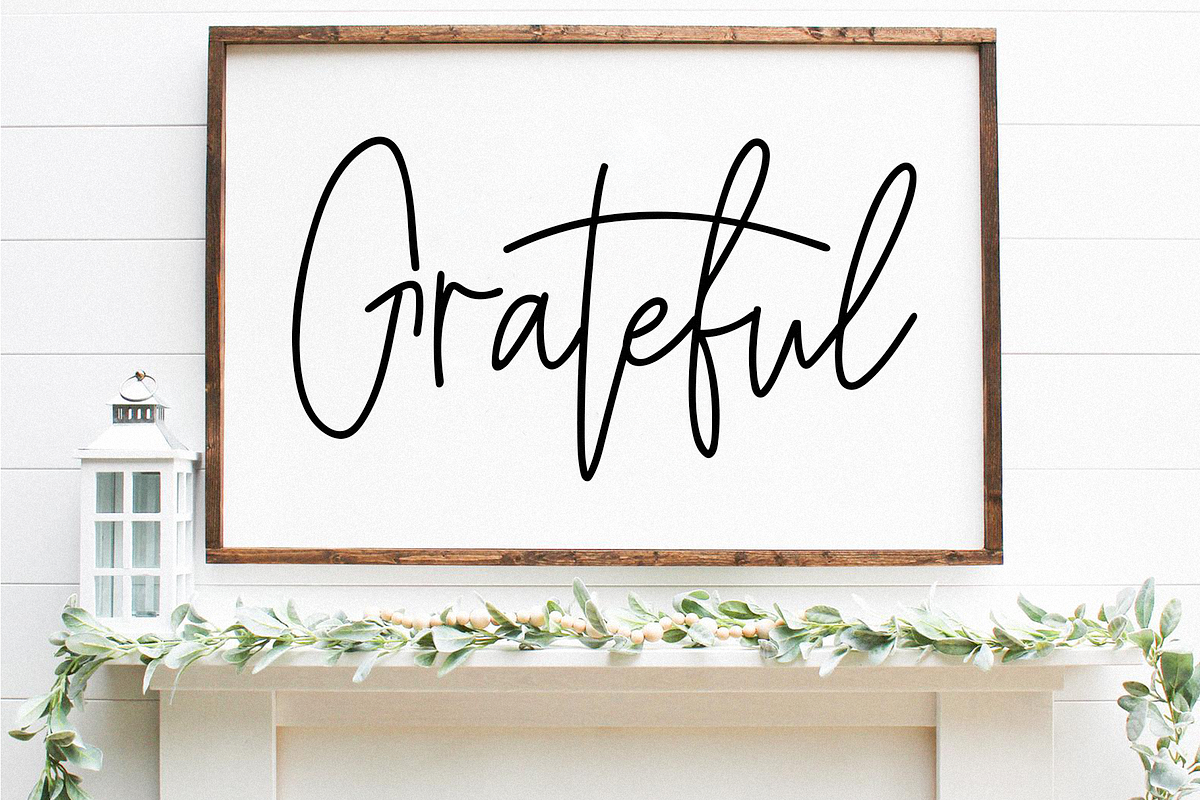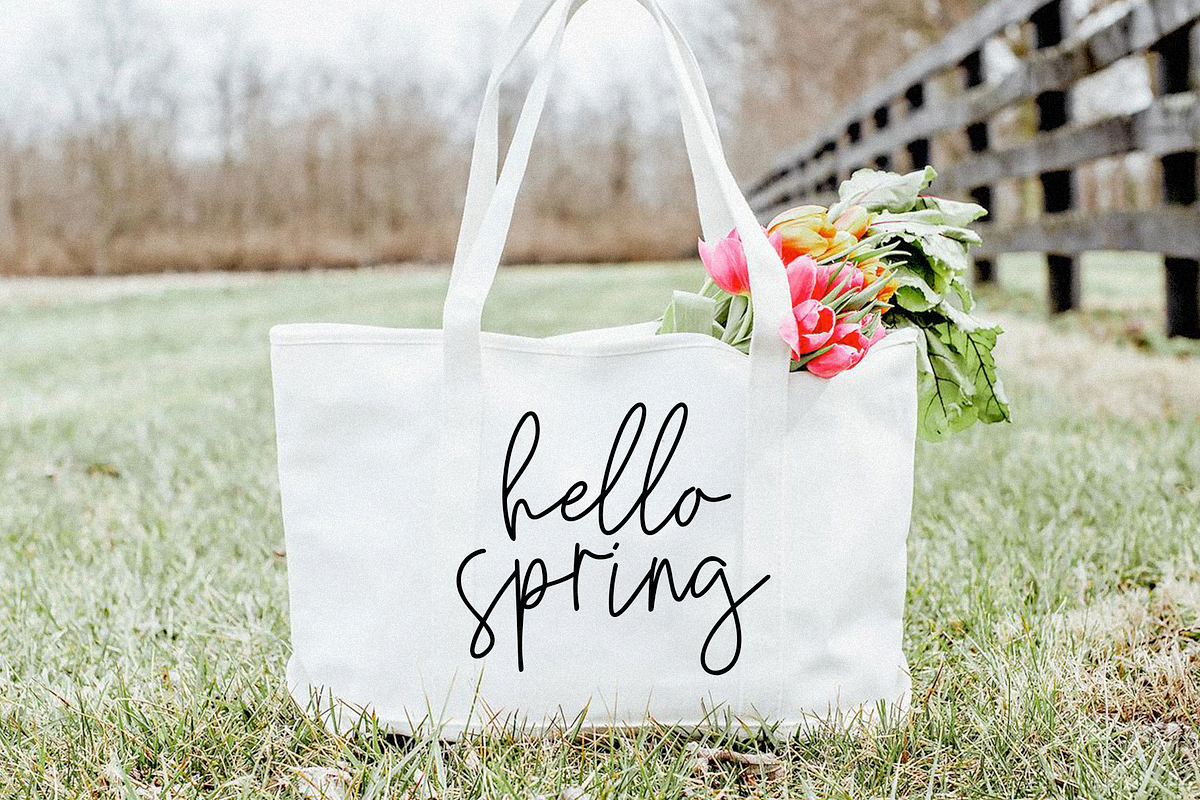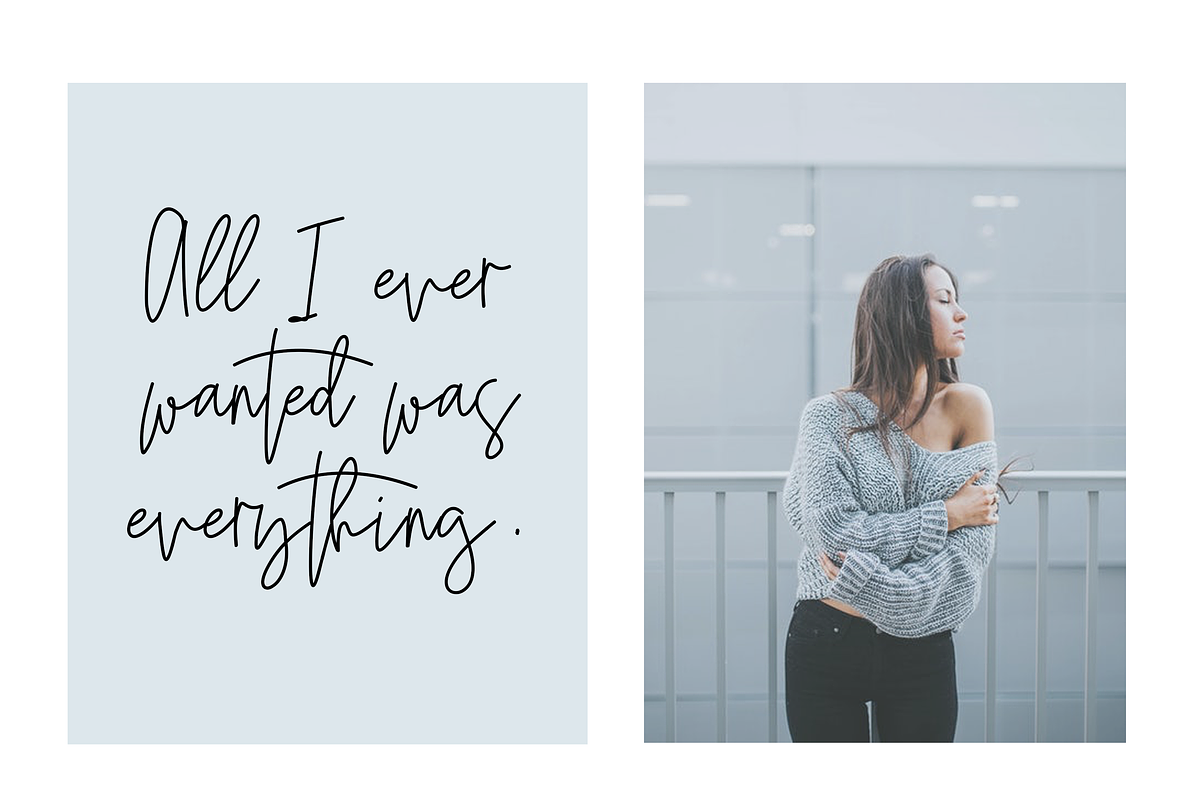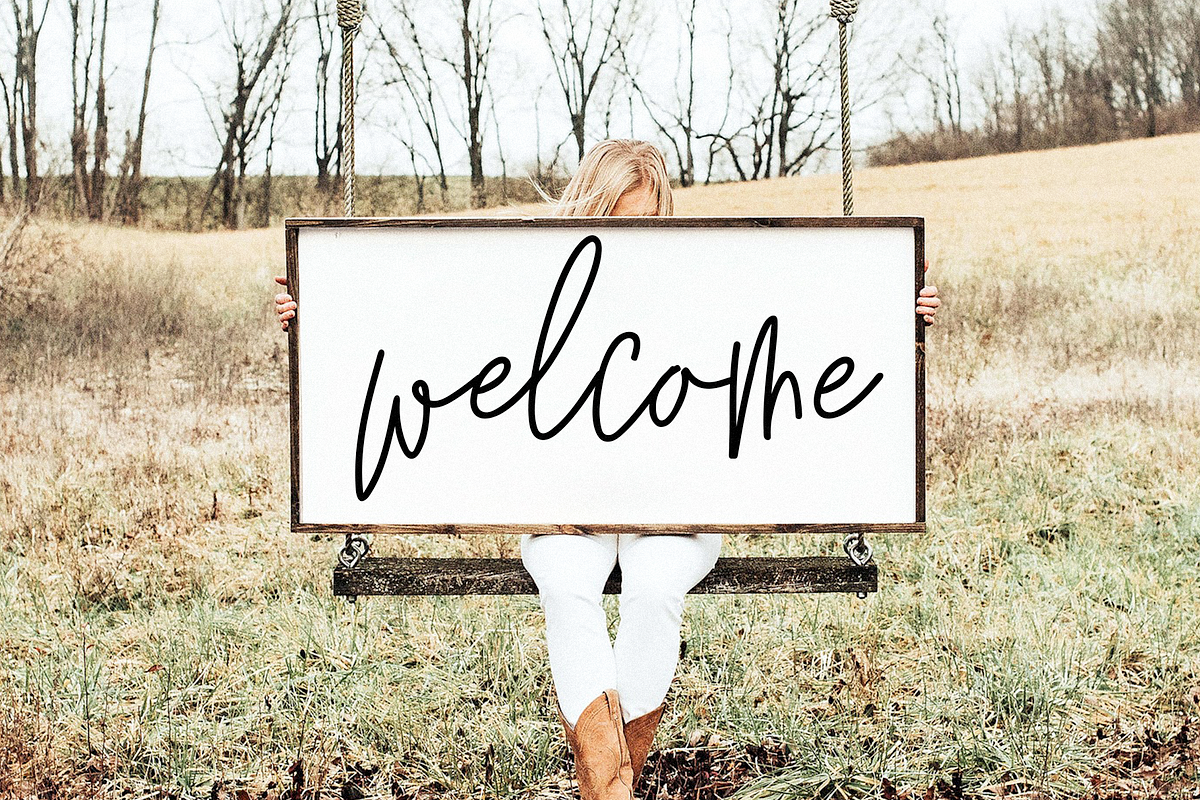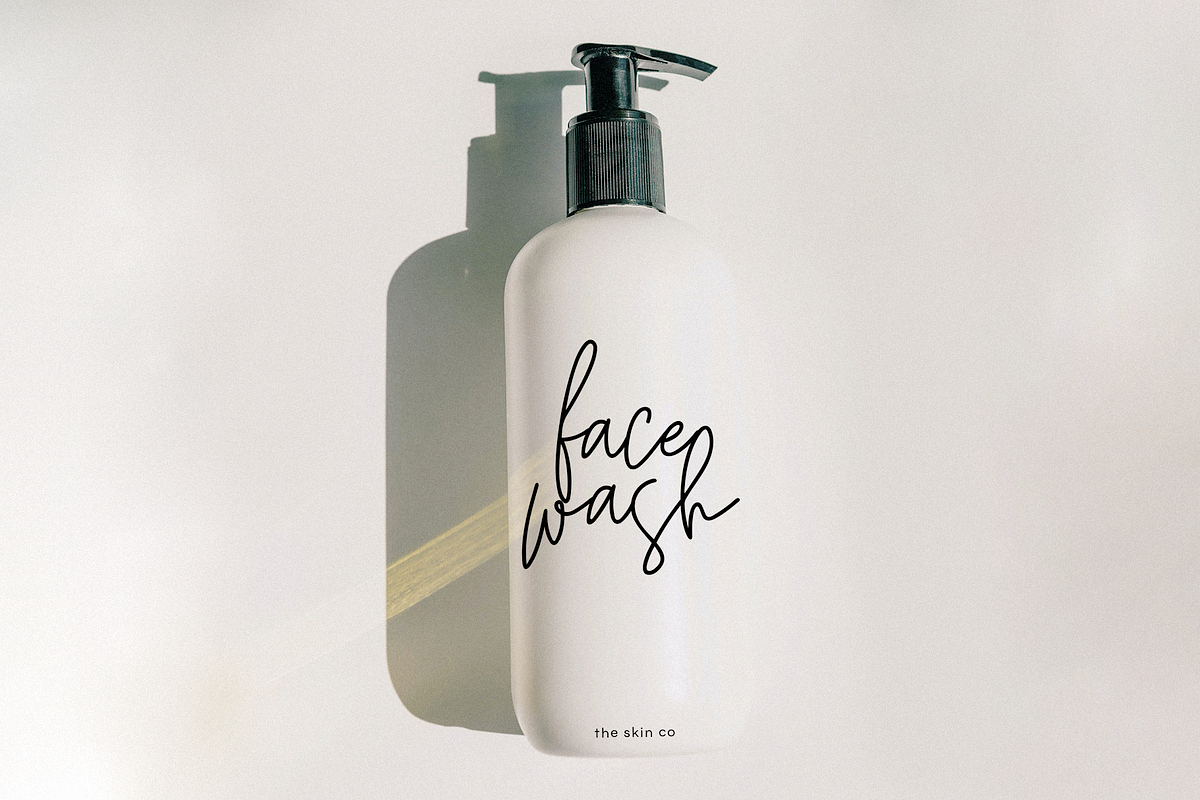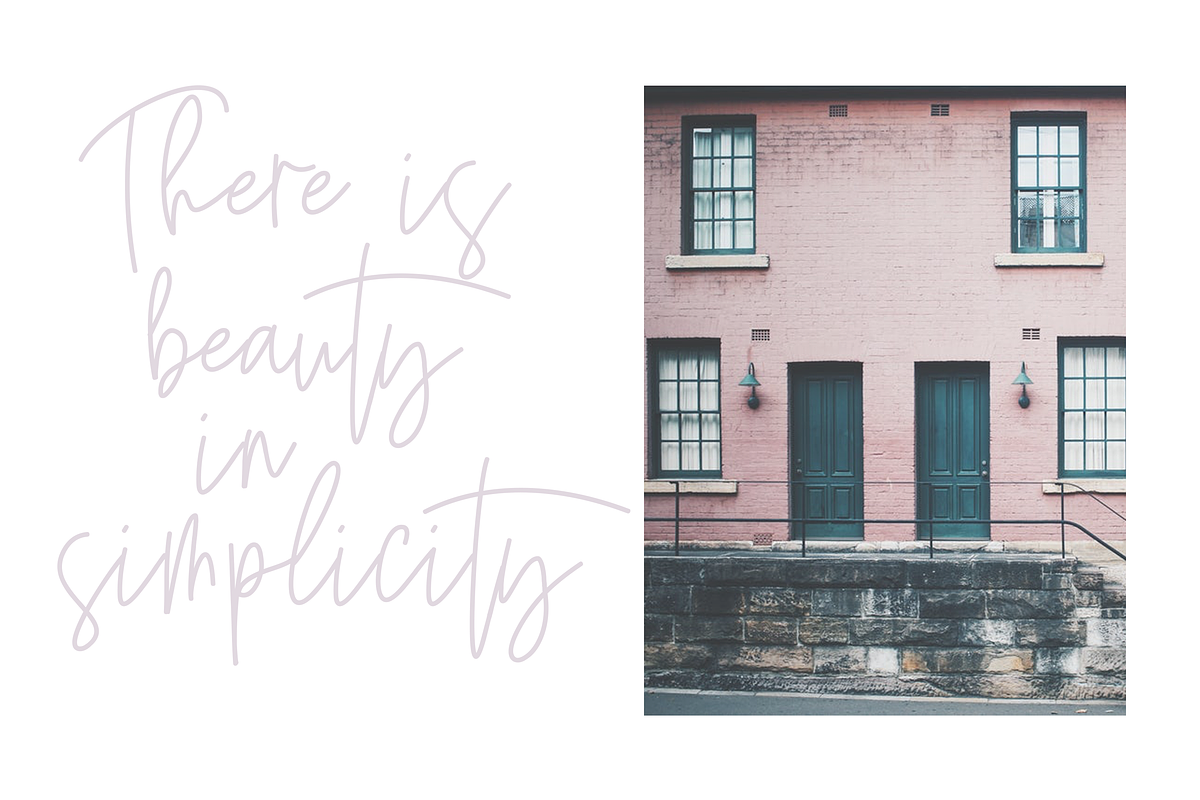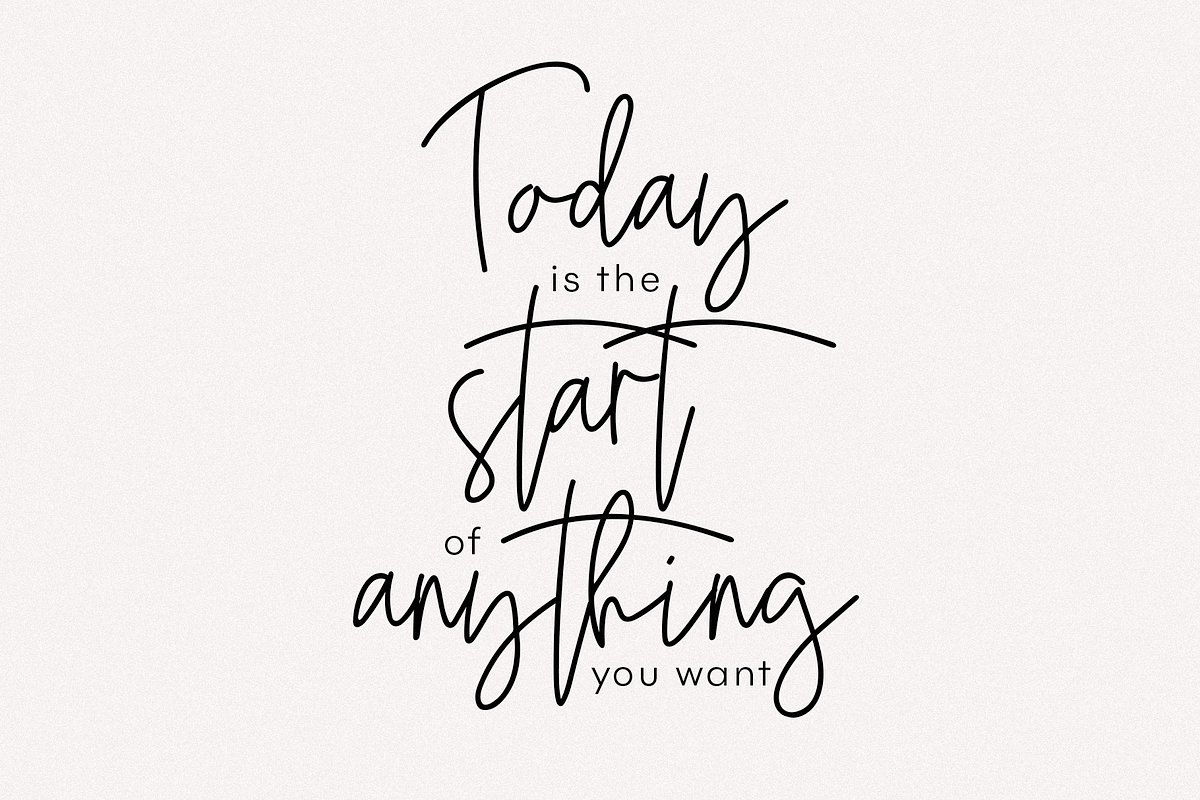
Saturday - Signature Script Font
Saturday is a chic handwritten script font. This font is perfect for quotes, headings, blogs, logos, invitations and more!